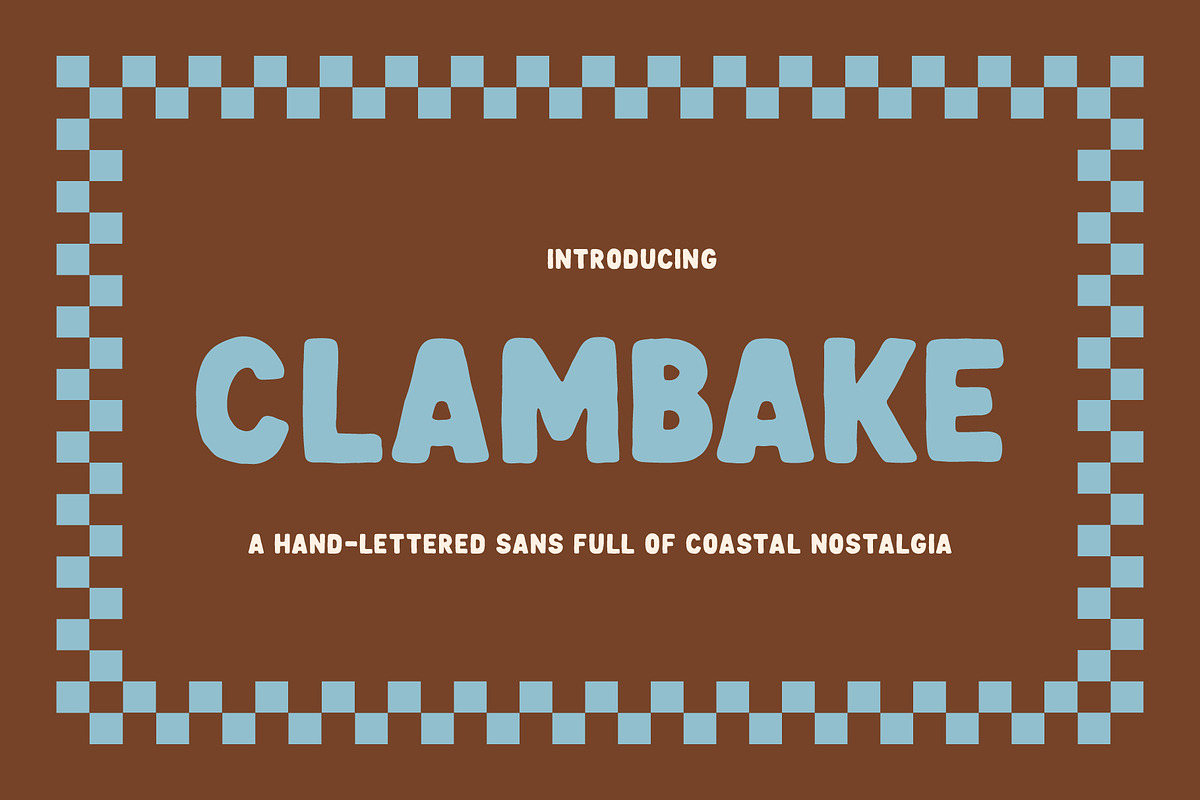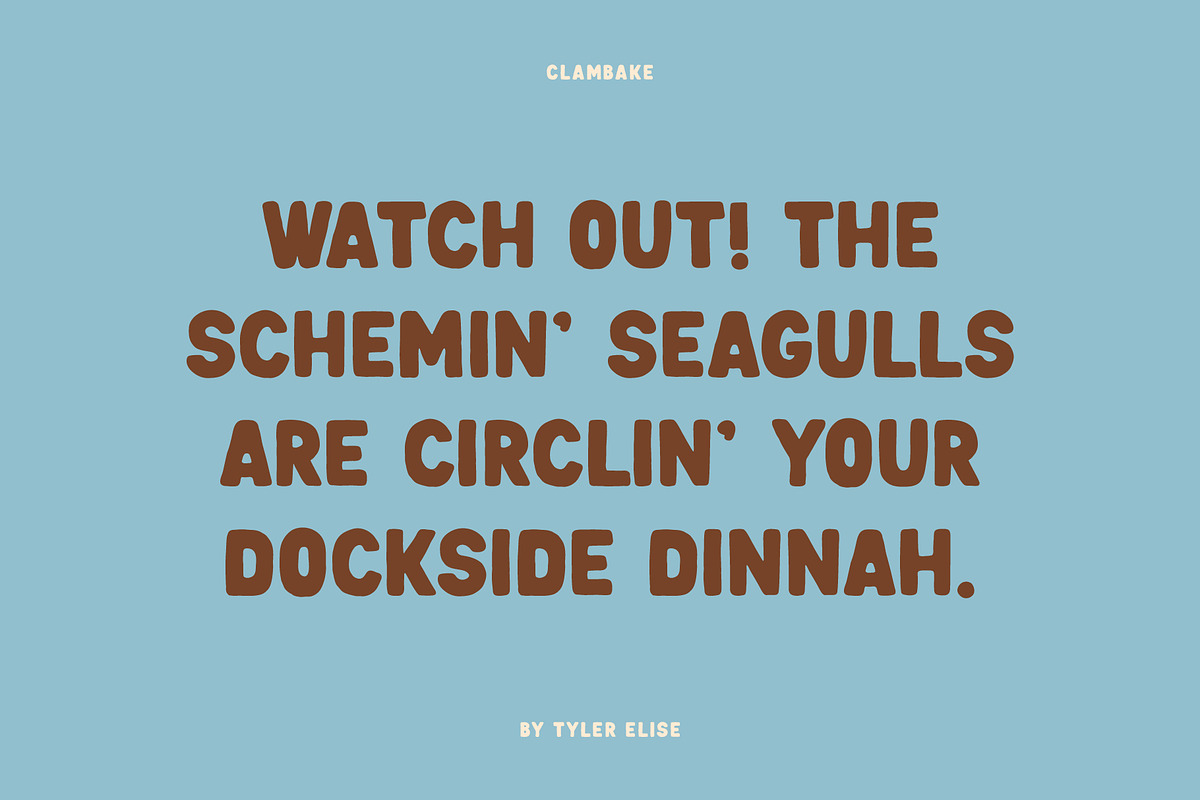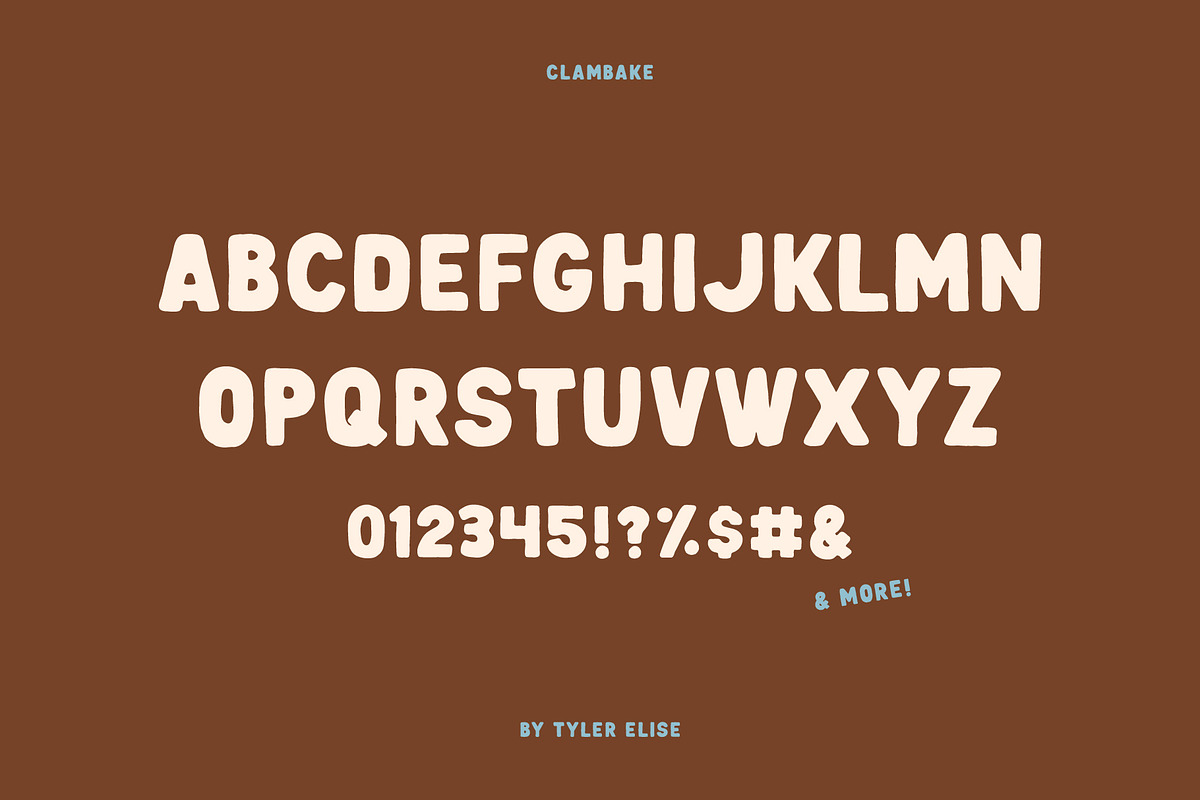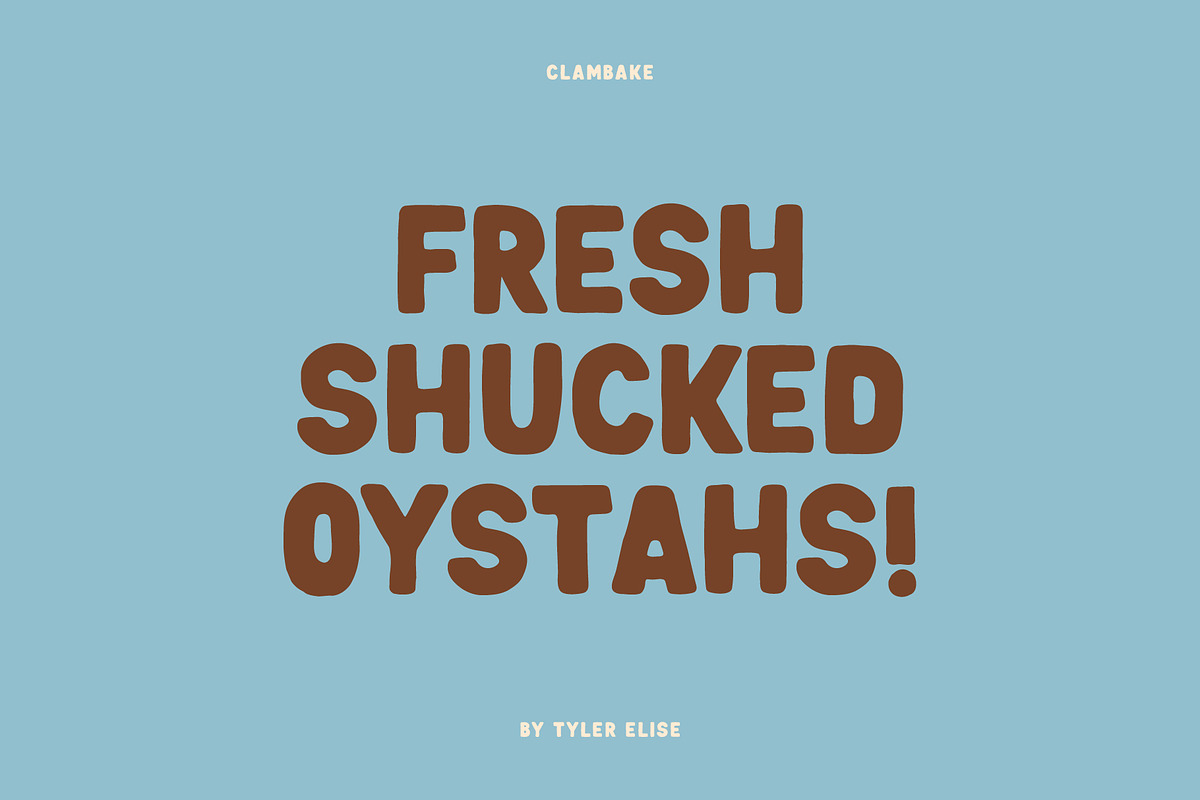
CLAMBAKE by Tyler Elise
CLAMBAKE is a chunky, hand-lettered sans full of coastal nostalgia. Inspired by hand-painted signs on New England’s docks and seafood shacks, it’s bold, easygoing, and just the right amount of imperfect.